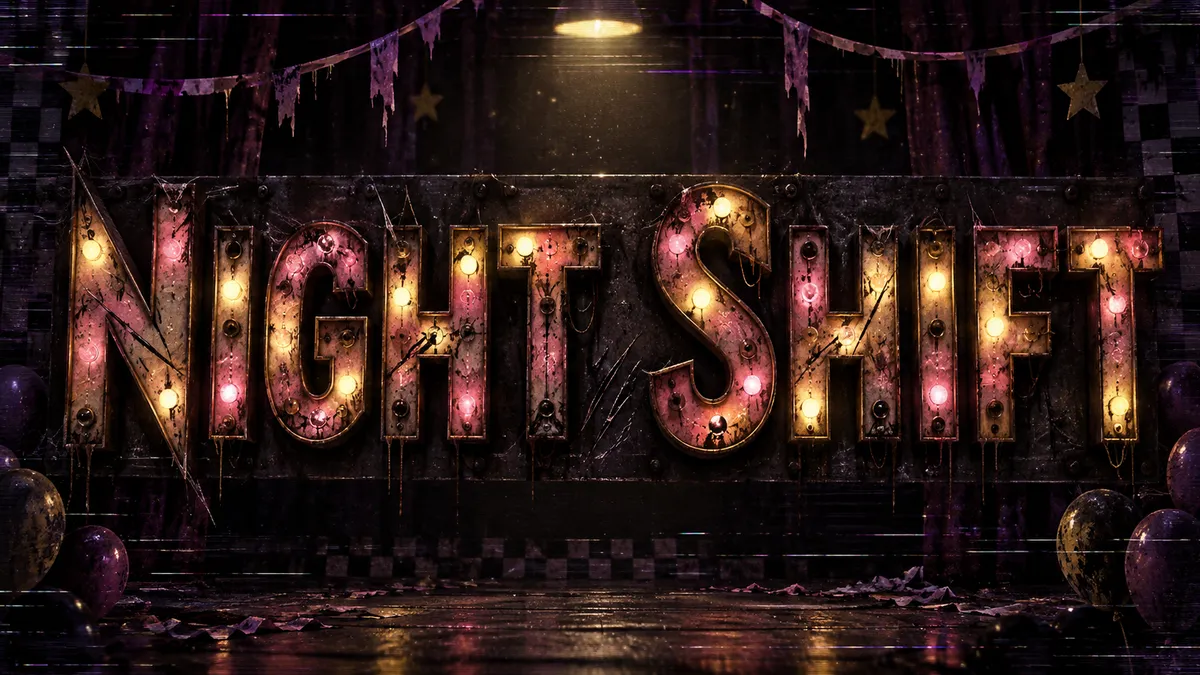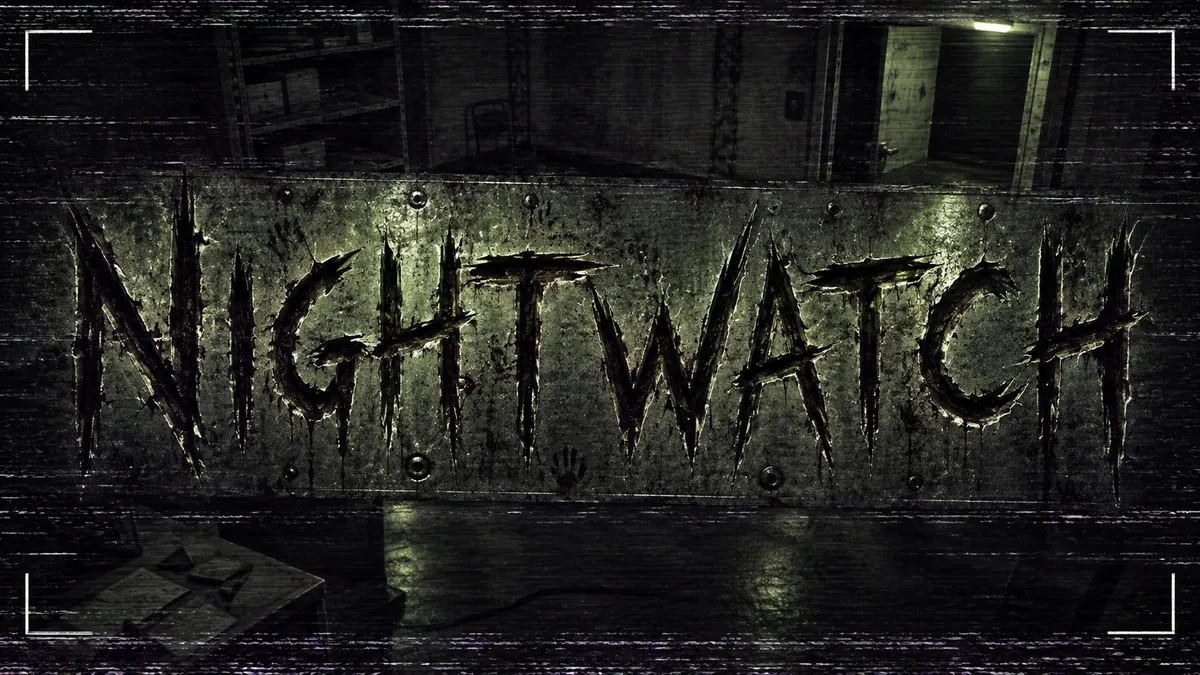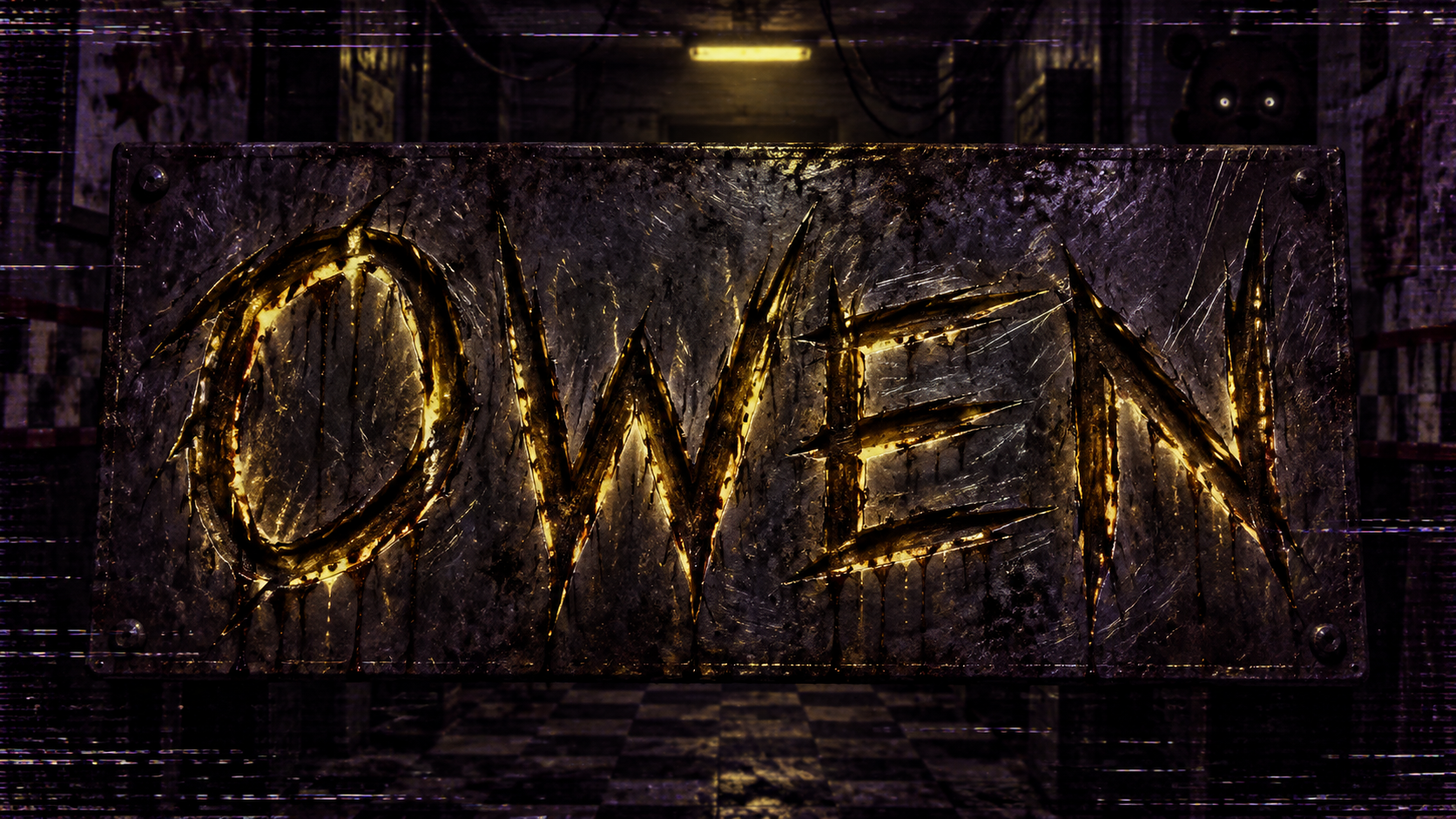
Scratched metal, VHS static, and a dim security-camera glow. Horror lettering inspired by the game. Fan-made.
letters gouged into scratched dark steel with deep claw marks, dim yellow glow in the grooves, grimy texture
Claw Marks uses scratched, damaged letters. Try a one-word name such as Owen, then inspect the cuts at thumbnail size.
Security Cam gives a short title such as Nightwatch a surveillance-screen mood. Keep episode numbers and dates in your editor.
A one-word horror nameClaw Marks
Owen is an existing four-letter example. A short name leaves room for scratched edges.
A surveillance-themed episode titleSecurity Cam
Nightwatch is an existing one-word example. Add accurate timestamps and episode details separately in your editor.
A two-word night-shift titleNeon Party
Night Shift is an existing two-word example. Check the glow against your final thumbnail background.
A search for the FNAF font can mean a game title, menu lettering, or the movie artwork. These are separate references; this page does not identify one typeface for every version or reproduce an official logo. Fontique renders your own words as an original animatronic-horror image, with scratched capitals, dim security-camera light, or VHS static depending on the preset.
Presets pick different corners of the pizzeria after dark. Claw Marks is the scratched-metal base look, Security Cam adds static, scan lines, and night-vision green, Neon Party gives you a flickering 80s party-sign glow, Rusted Wires exposes mechanical parts and rust, and Purple Static drowns the letters in violet glitch.